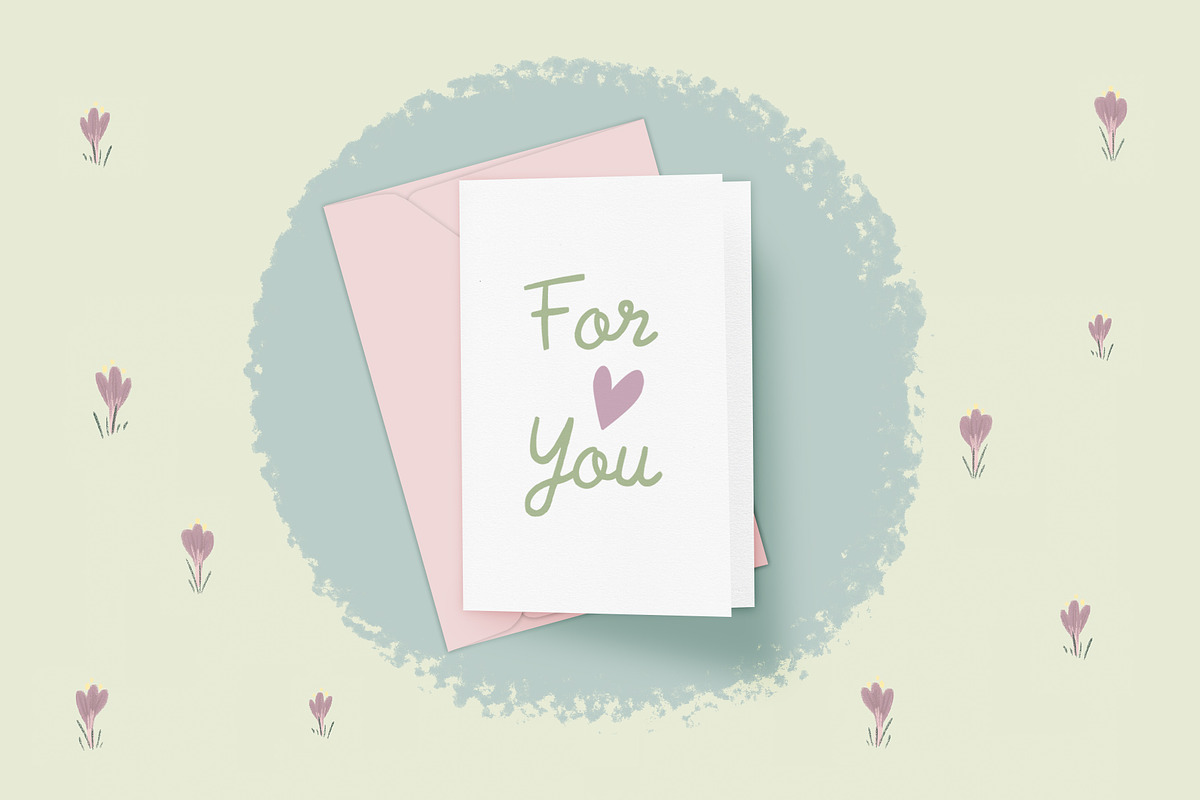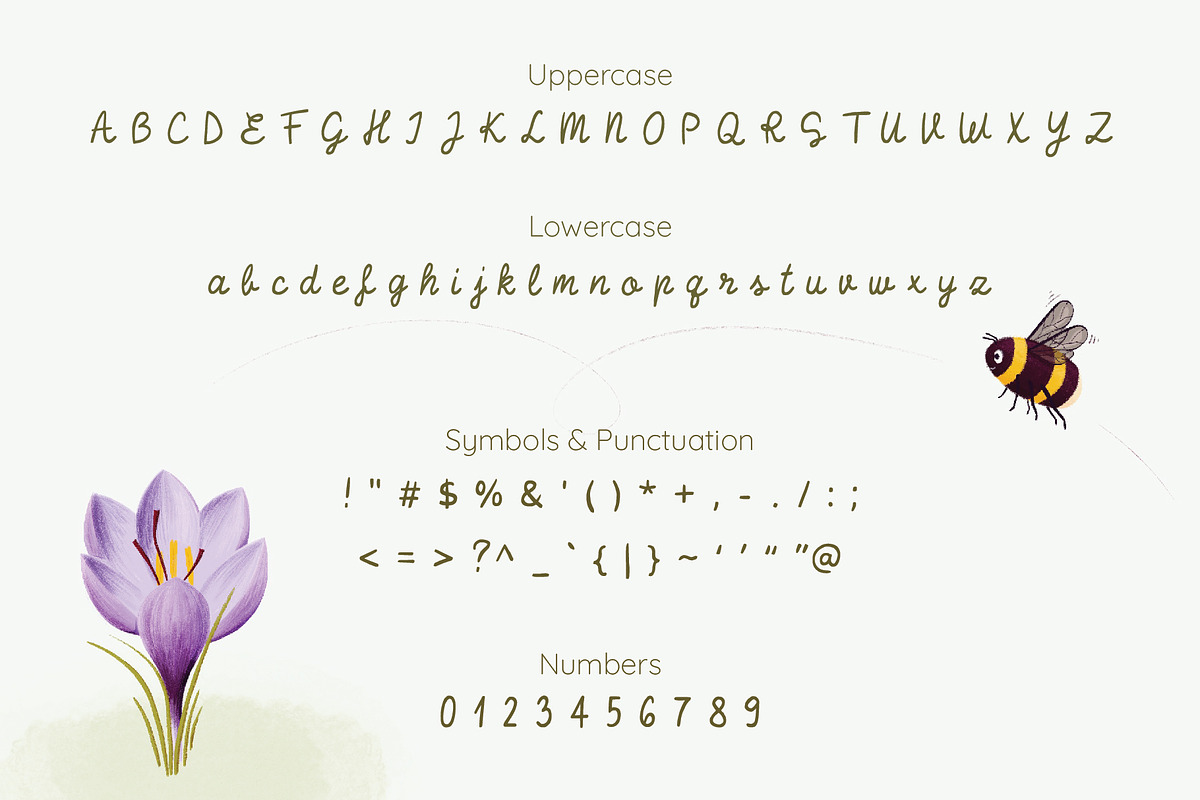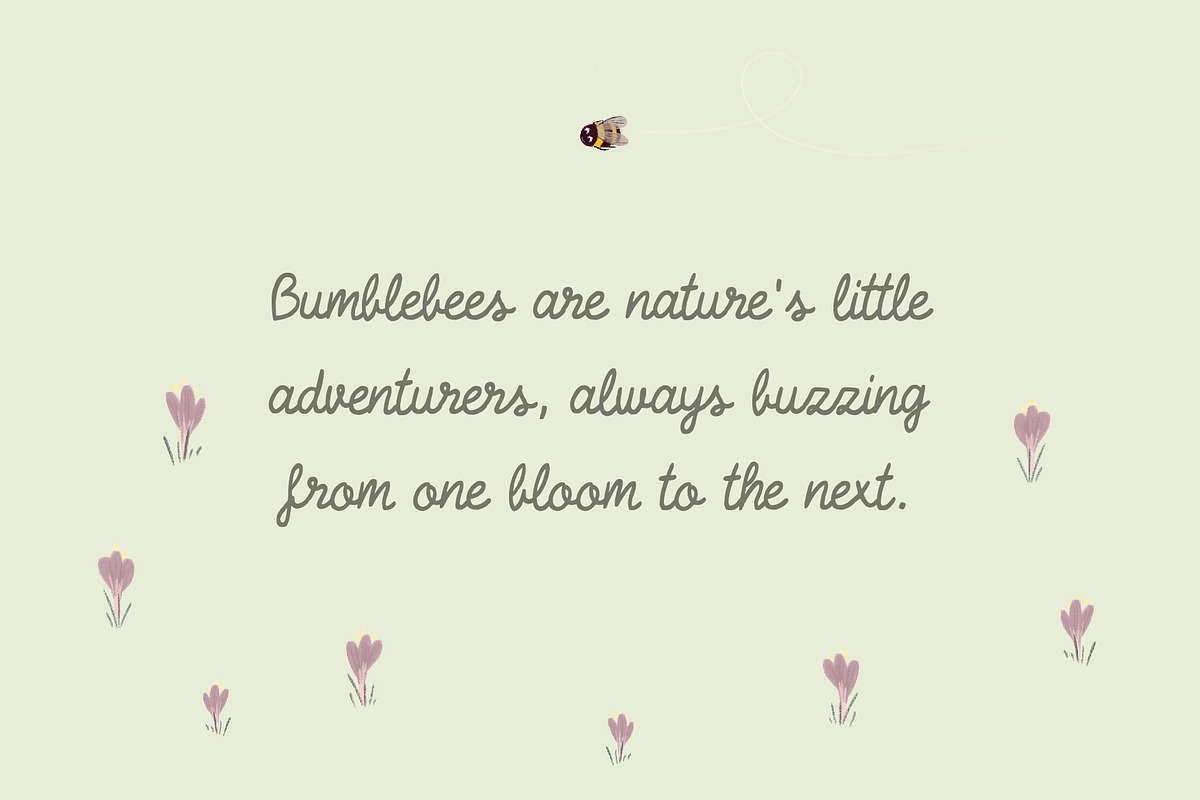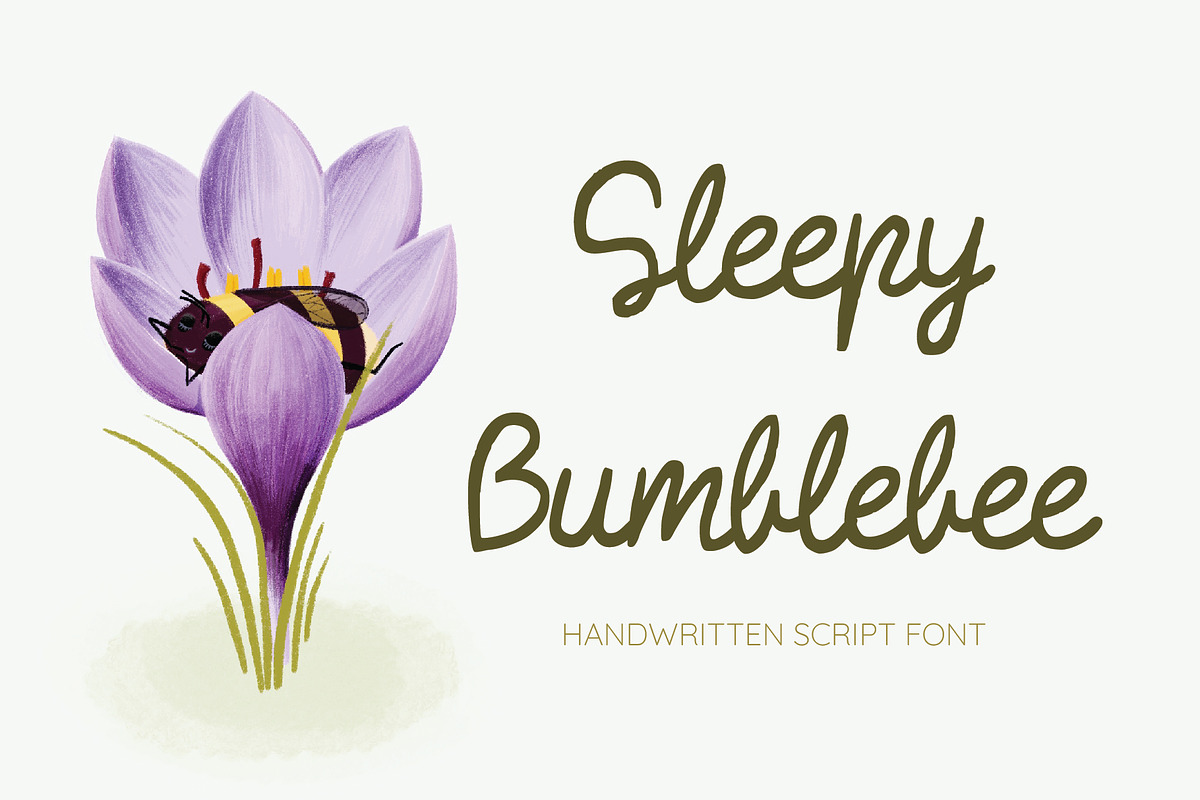
Sleepy Bumblebee
Sleepy Bumblebee is a delightful handwritten script font that combines playful charm with a relaxed, cozy vibe. With its soft curves and bouncy letterforms, it feels like a gentle, lazy afternoon in a field of flowers. Inspired by the carefree movement of a bumblebee, this font is perfect for projects that need a touch of whimsy and warmth. Whether you’re designing greeting cards, invitations, or playful branding, Sleepy Bumblebee brings a relaxed and inviting feel to any project.